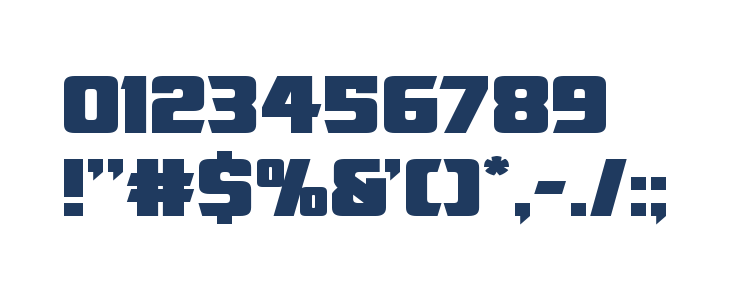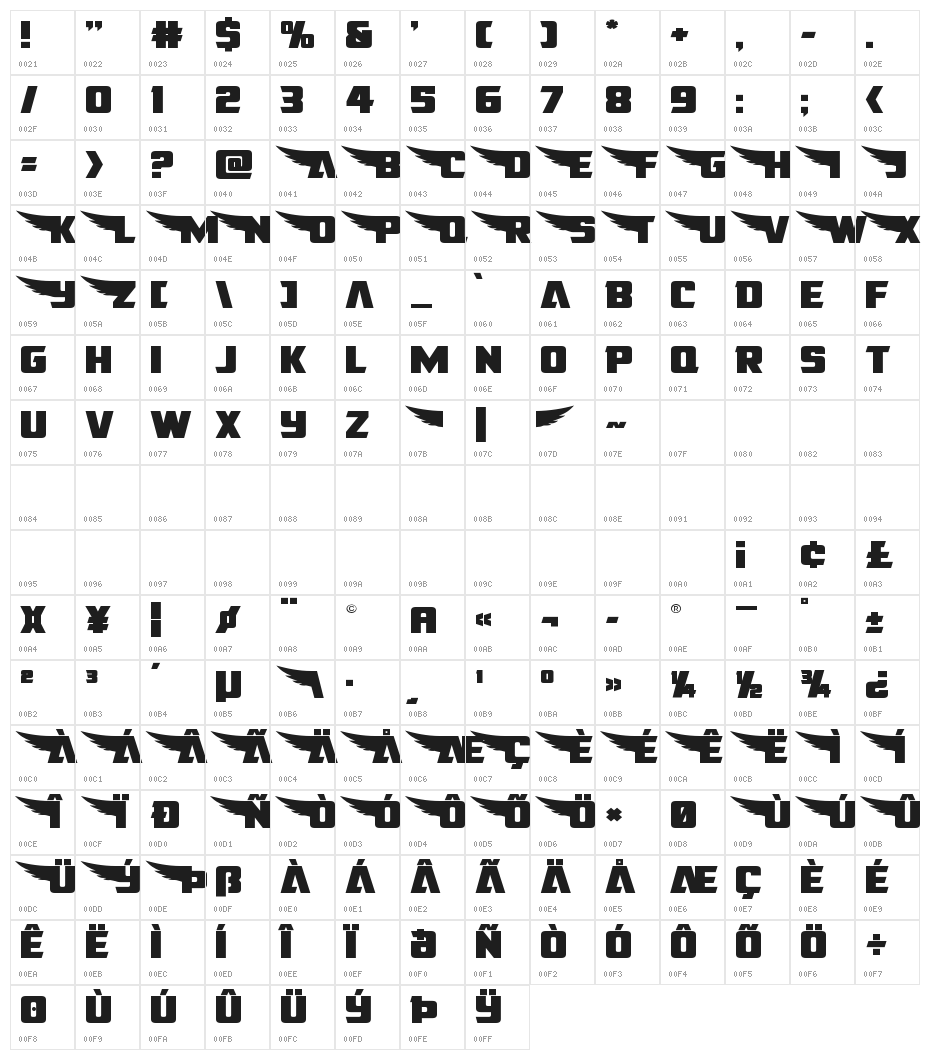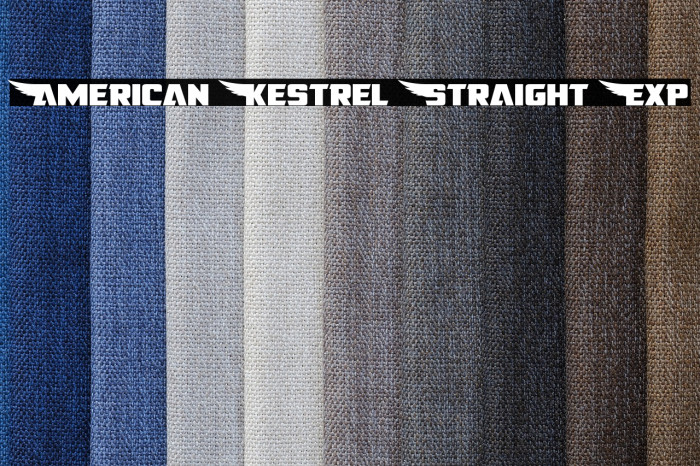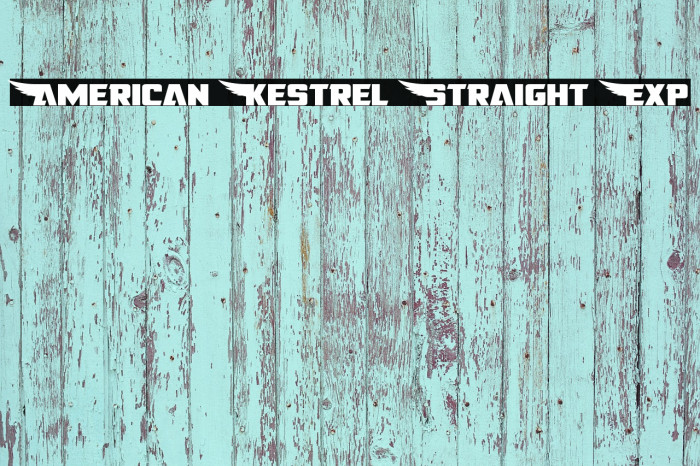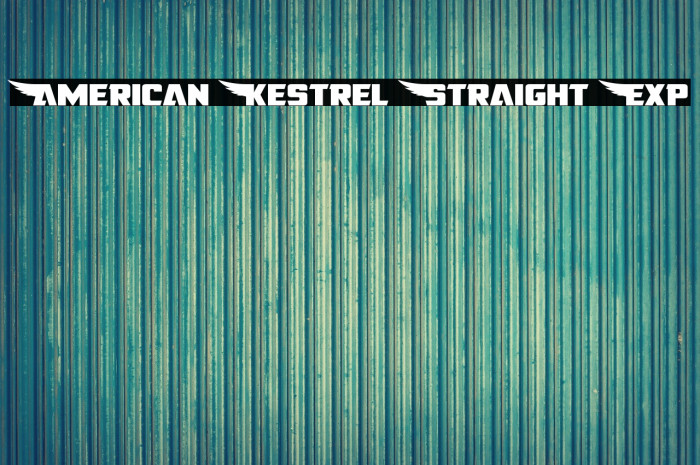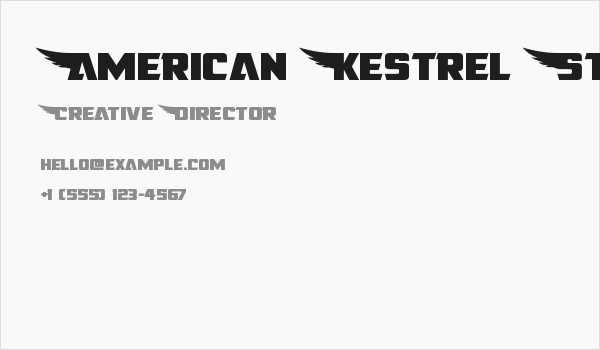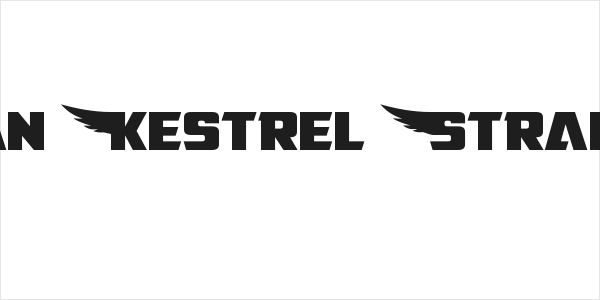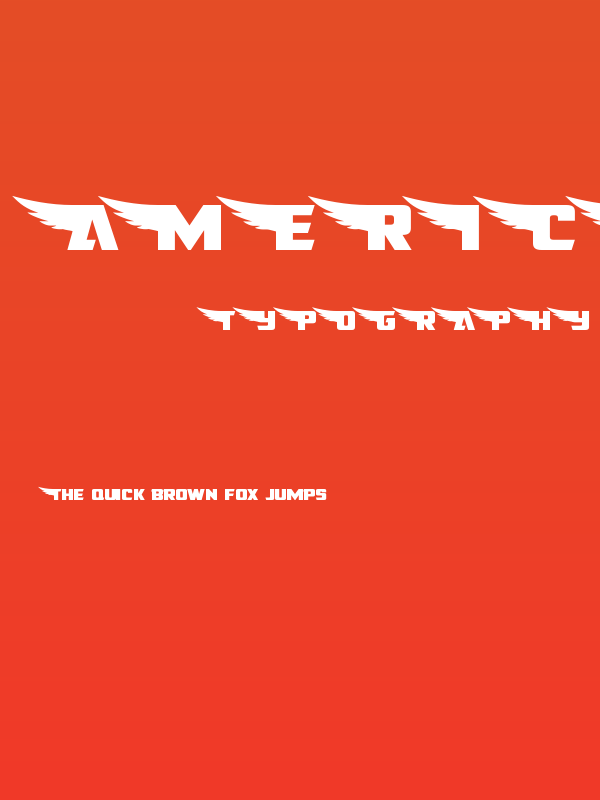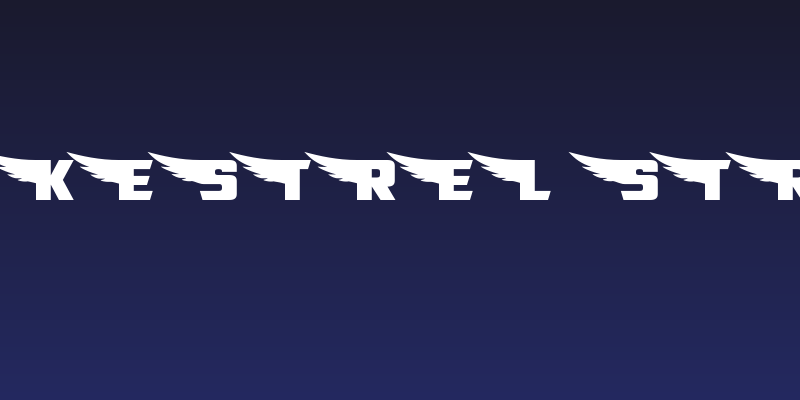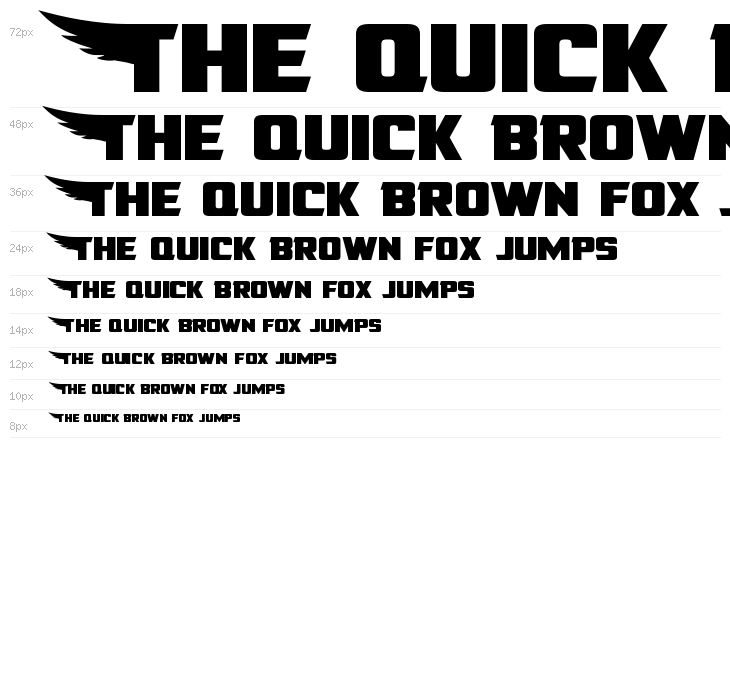
American Kestrel Straight Exp Font
American Kestrel Straight Exp Description
This bold and striking font features a unique design with an aerodynamic flair, reminiscent of wings or speed lines, giving it a dynamic and energetic appearance. The uppercase letters are particularly distinctive, with sharp angles and a sense of motion, making them ideal for attention-grabbing headlines or logos. The numbers and special characters maintain this bold style, ensuring consistency across all uses. The font's strong geometric shapes and thick strokes contribute to its powerful presence, while the consistent width and spacing provide a balanced and cohesive look.
| Proposed Projects | Ideal for sports branding, automotive logos, dynamic posters, and action-themed designs. |